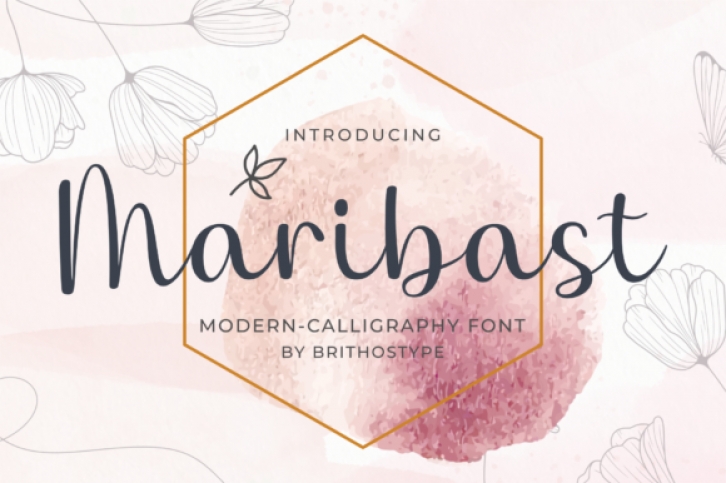
Maribast is a flowing and relaxed handwritten font. Fall in love with its incredibly versatile style and use it to create gorgeous wedding invitations, beautiful stationary art, eye-catching social media posts, and much more!